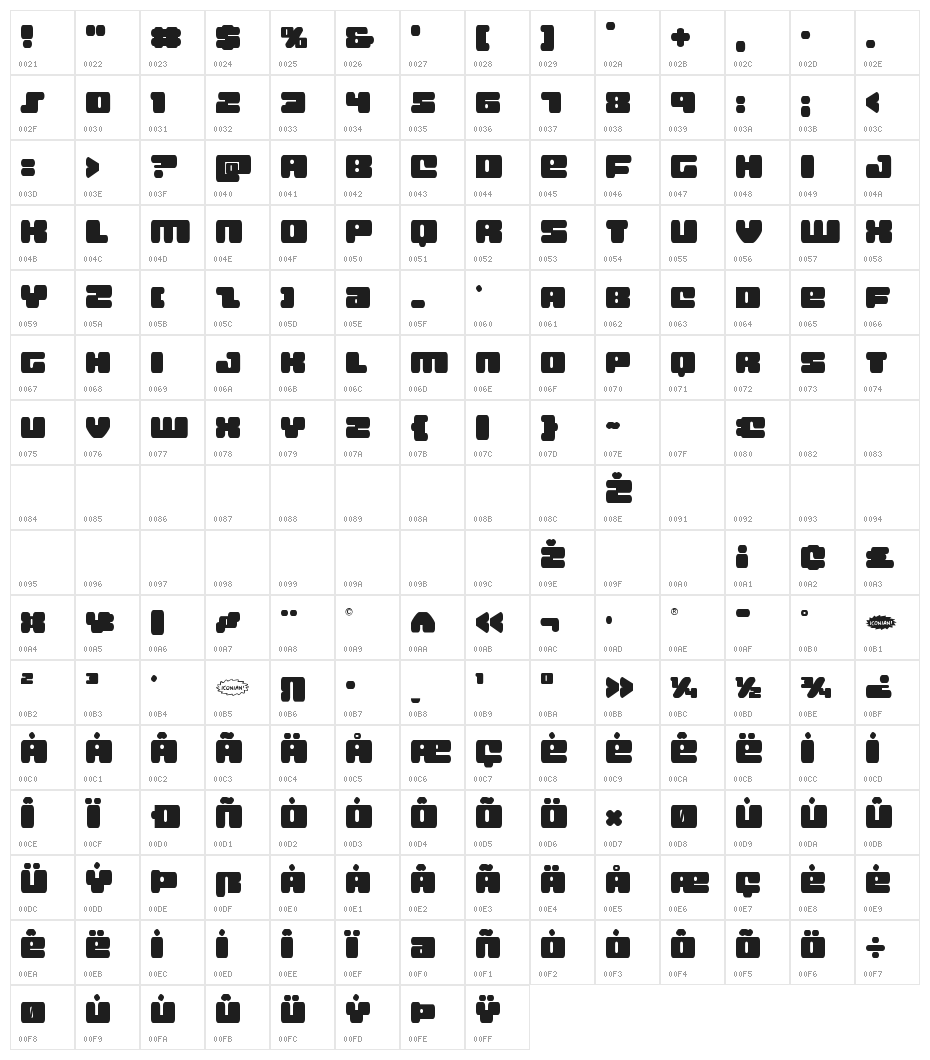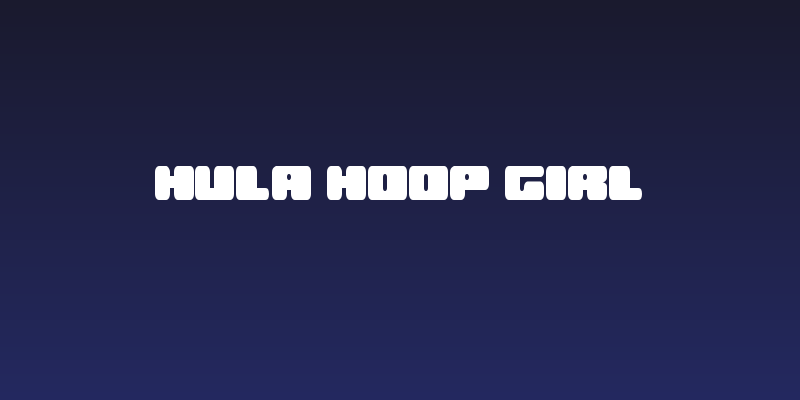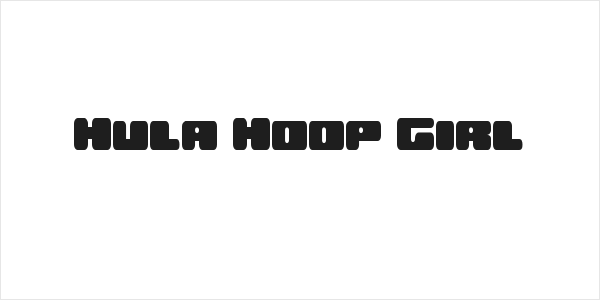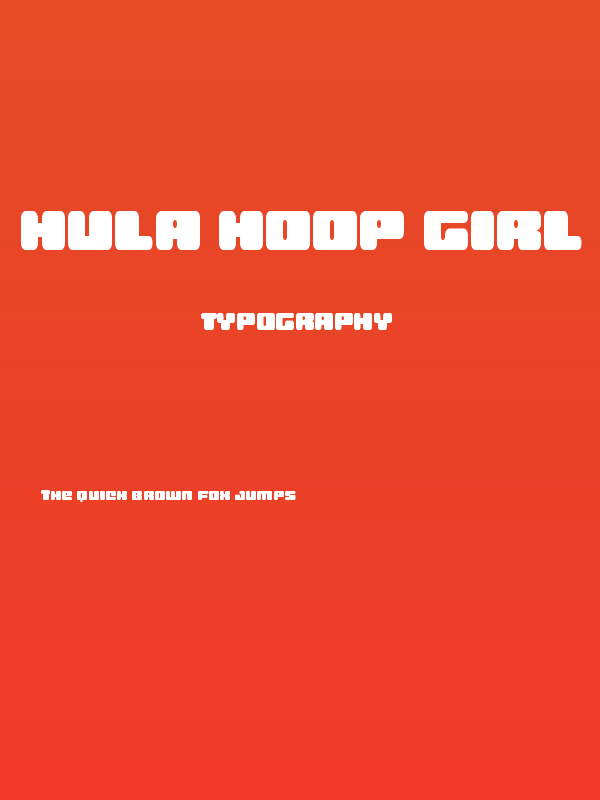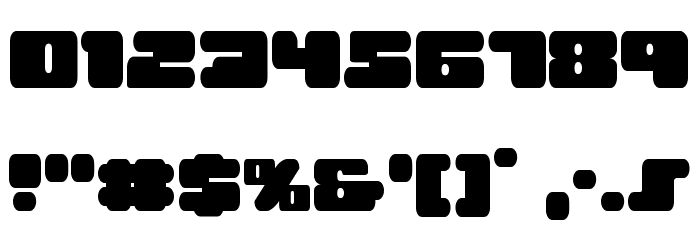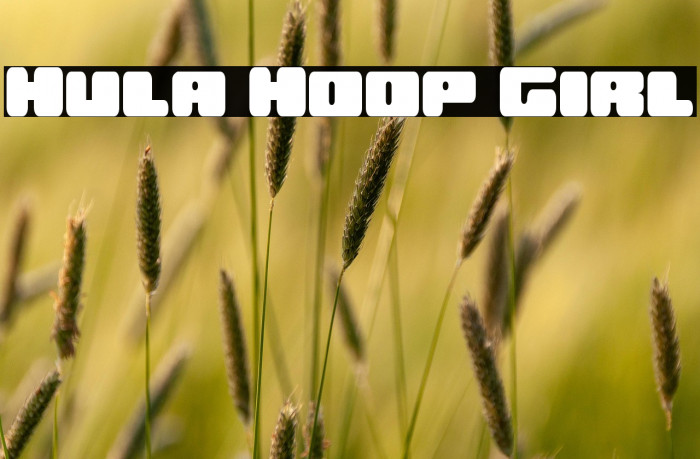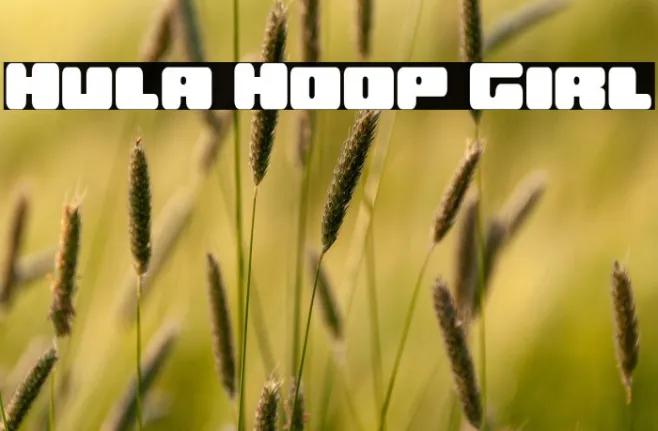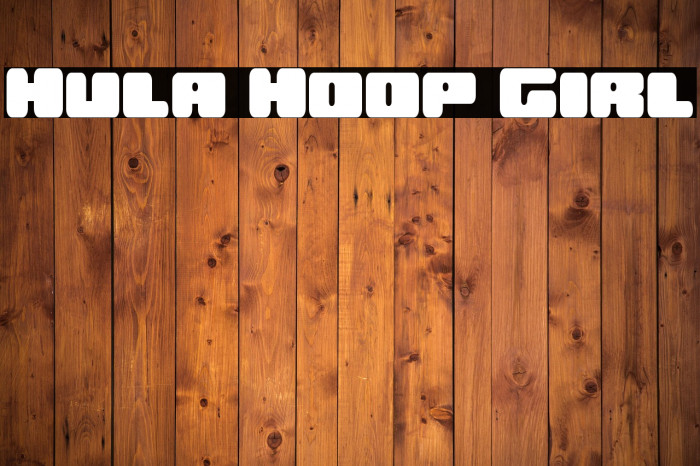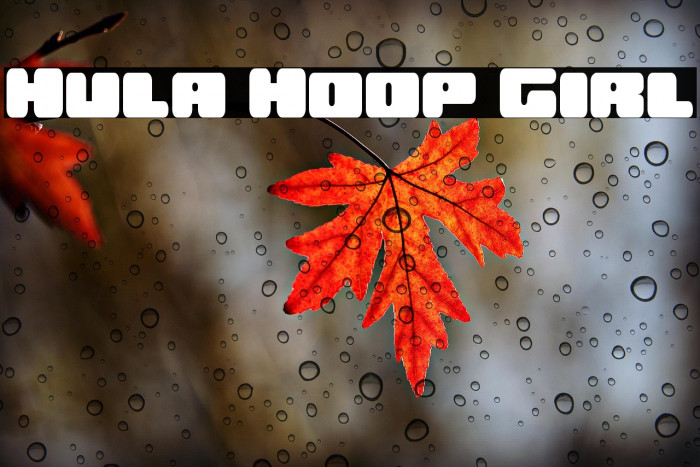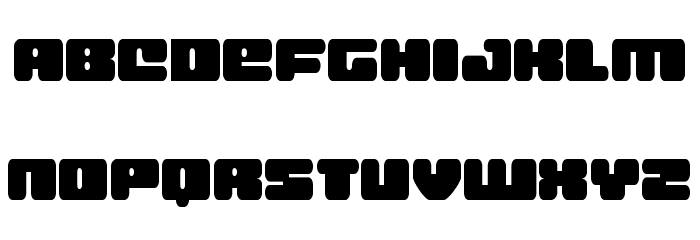
Hula Hoop Girl Font
Hula Hoop Girl Description
This font features bold, rounded characters with a playful and chunky appearance. The letters are uniformly thick, creating a strong visual impact. The rounded edges and consistent stroke width give it a friendly and approachable feel. Its geometric shapes and solid structure make it ideal for eye-catching designs. The font maintains a consistent height across all characters, enhancing its cohesive look. The numbers and special characters are designed with the same boldness, ensuring uniformity throughout.
| Use Case | Logos, Posters, Headlines |
| Proposed Projects | Ideal for children's books, playful branding, posters, and any design requiring a fun and bold statement. |